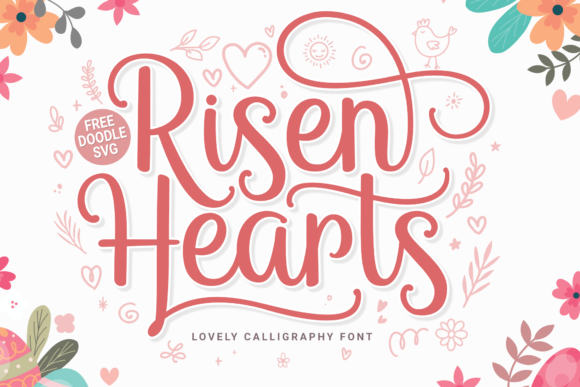
Attention all designers, bloggers, and creatives! Say hello to Risen Hearts Font, the perfect font to elevate your design game! This stunning script font created by Holydie Studio is the ultimate choice for those looking for clean fonts for design resume.
With its beautiful and romantic handwritten style, Risen Hearts Font exudes a classy, elegant and modern look that will leave a lasting impression on your audience. Whether you're creating logos, branding, invitations, stationery, wedding designs, social media posts, or any other design project, Risen Hearts Font is the versatile tool you need to take your designs to the next level.
But that's not all! Risen Hearts Font is PUA encoded, which means you can access all of the glyphs and swashes with ease! This feature ensures that your designs will stand out from the crowd, leaving your audience breathless with its unique and stunning style.
Incorporating Risen Hearts Font into your design is an easy way to make your work stand out. Its clean lines, attention to detail, and romantic feel will leave a lasting impression on your viewers. Don't settle for mediocre design, choose Risen Hearts Font and make your designs pop!